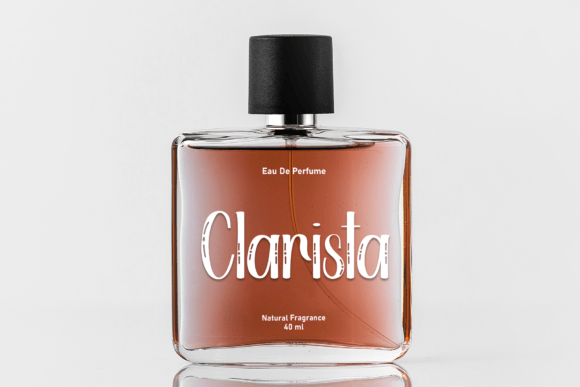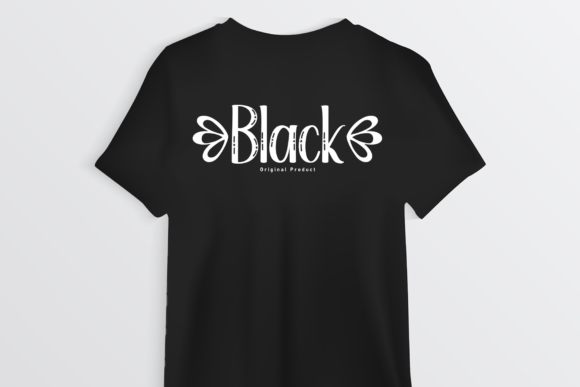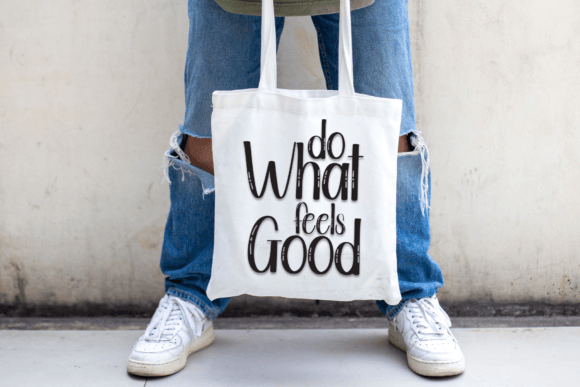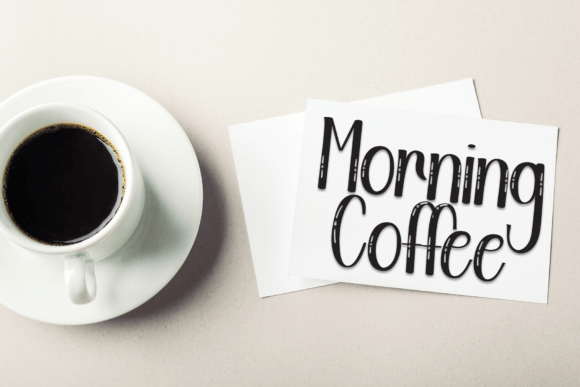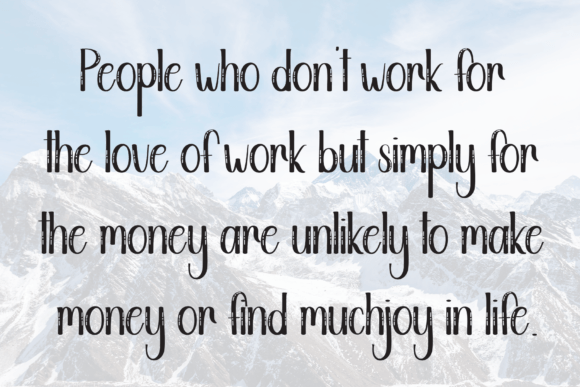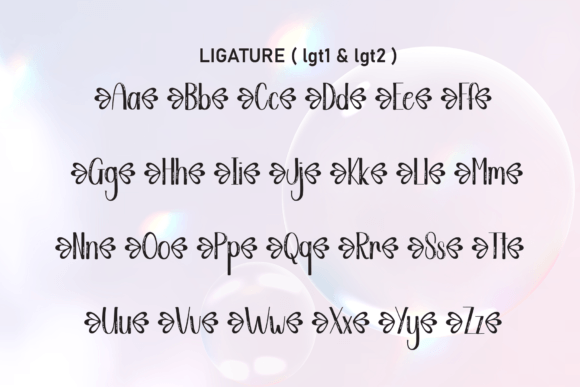
Discover the Magic of Boho Bubble Font
Do you ever find yourself rummaging through your sketchbook, searching for the perfect font to bring your design to life? I know I do! There’s something about seeing a handwritten font come to life that just sparks creativity. And that’s exactly what Boho Bubble Font is all about – capturing the essence of free-spirited design and making it accessible to anyone.
Boho Bubble Font is a beautiful, handcrafted typeface that exudes warmth and personality. Its natural, organic feel makes it perfect for everything from wedding invitations to social media graphics. Whether you’re a seasoned designer or just starting out, this font is sure to add a touch of magic to your work. And the best part? The only limit is your imagination!
Key Features of Boho Bubble Font
- Character Count: 100+ characters, including uppercase and lowercase letters, numbers, and special characters.
- Unique Characteristics: Distinctive bubble-like shapes, intricate details, and a whimsical feel, making it perfect for creative and artistic designs.
Boho Bubble Font Review
The Boho Bubble Font is a beautiful, hand-drawn font that exudes a free-spirited and whimsical vibe. I love the ✨ playful, cursive lines and the way the letters seem to dance on the page. It’s perfect for designers looking to add a touch of bohemian charm to their projects.
- ✨ Beautiful, hand-drawn design that’s perfect for bohemian-inspired projects
- ✨ Great for creating a whimsical and playful atmosphere
- ✨ Works well for titles, headings, and short text
- ⚠️ May not be suitable for long blocks of text, as the cursive lines can become difficult to read
- ⚠️ May not be ideal for projects that require a more formal or professional tone
Overall, I’m impressed with the Boho Bubble Font. It’s a great addition to any designer’s toolkit, and I can see it being used in a variety of creative projects. While it may have some limitations, it’s a beautiful and versatile font that’s sure to add a touch of personality to any design.
Boho Bubble Font is perfect for creating whimsical and playful designs. Use it for:
- Children’s party decorations and materials
- Food and beverage branding (e.g. coffee shops, bakeries)
Remember to pair Boho Bubble Font with other playful and whimsical elements to create a cohesive and eye-catching design.